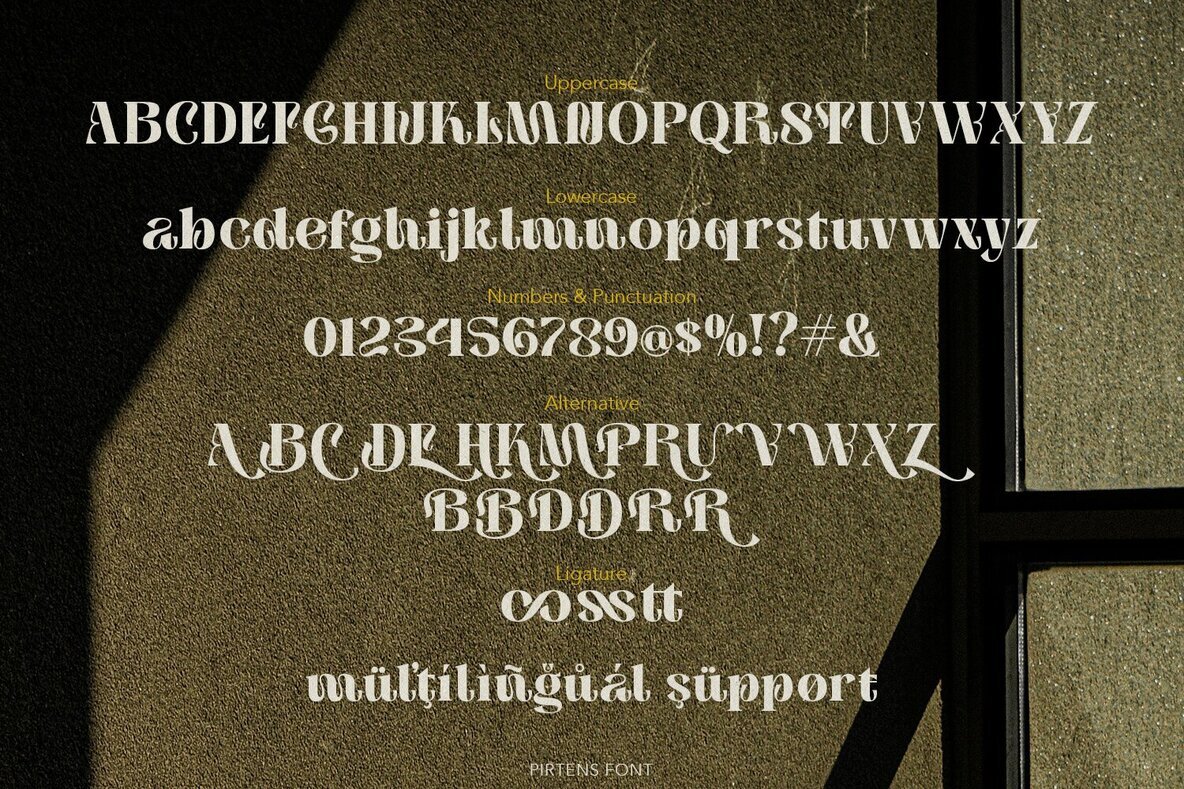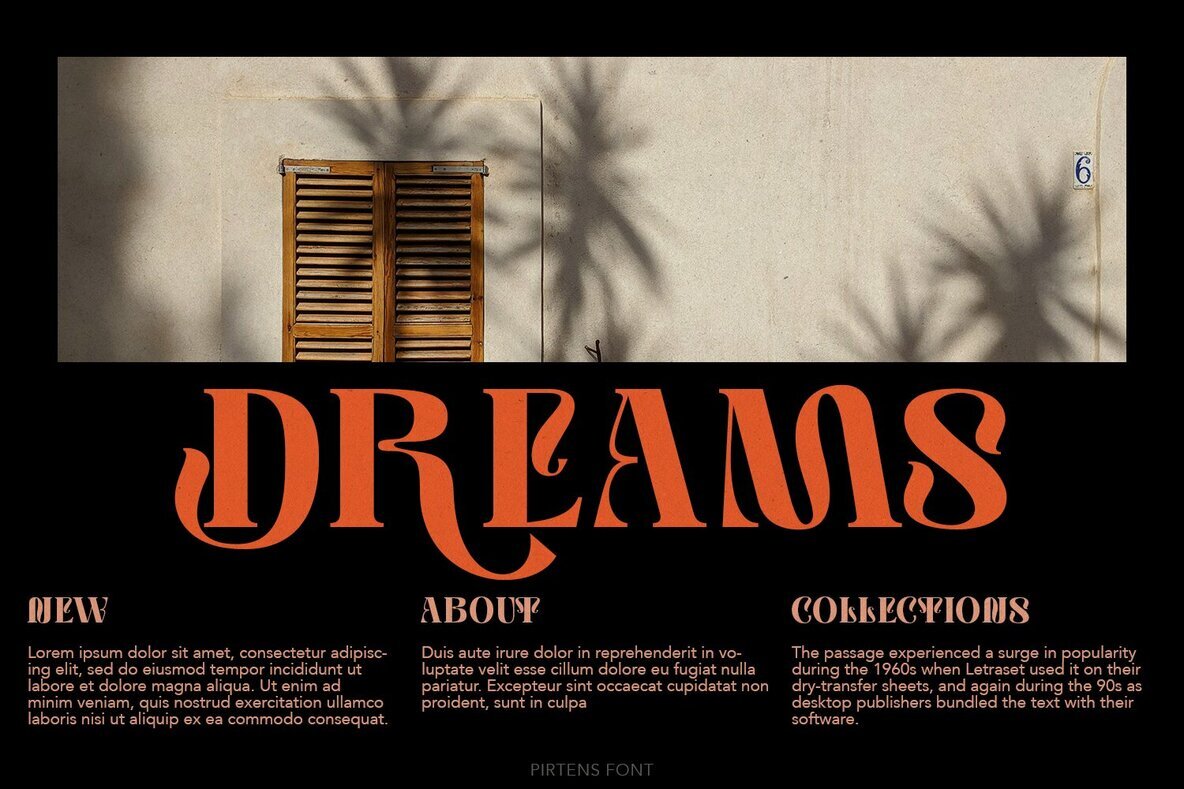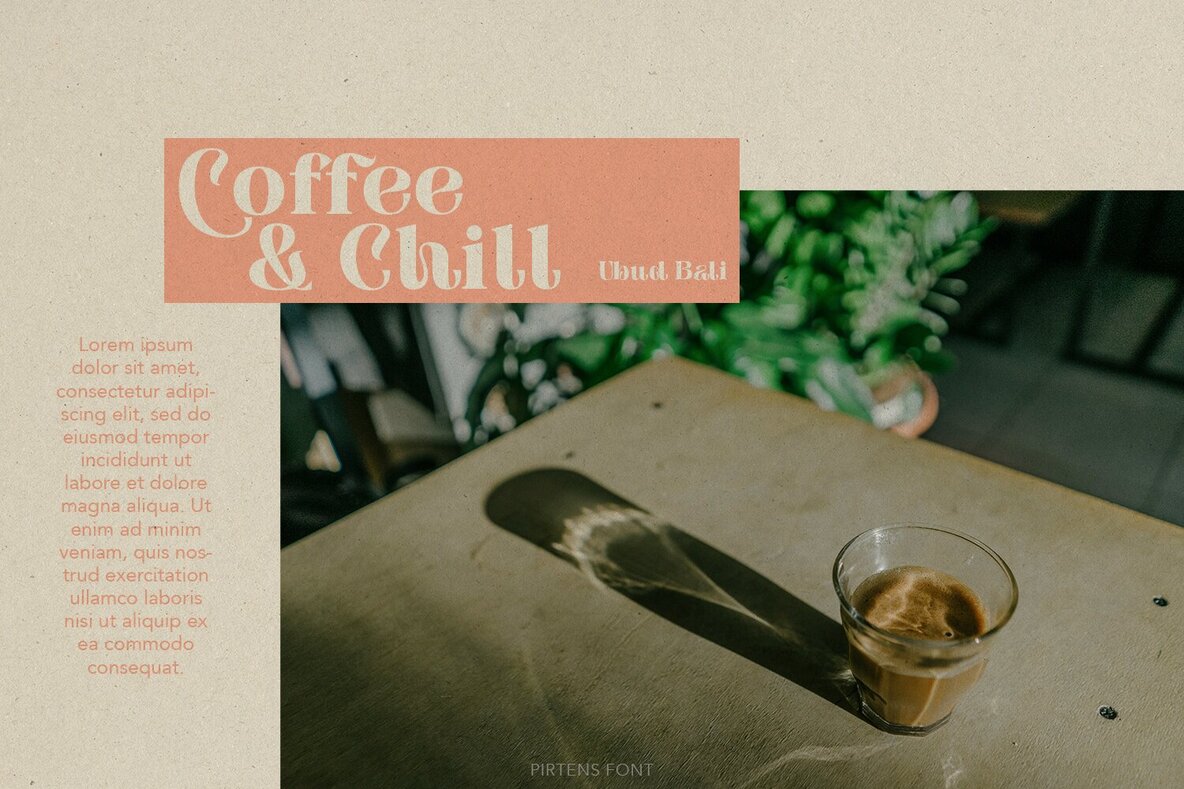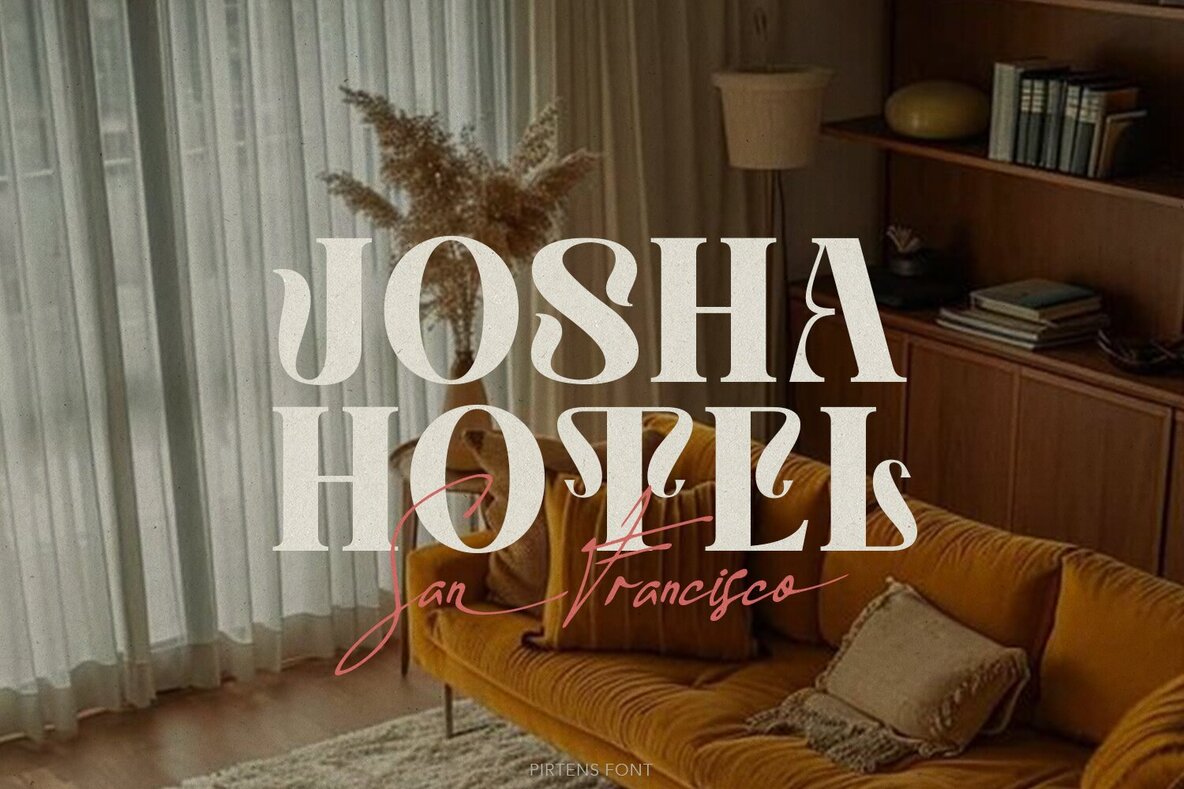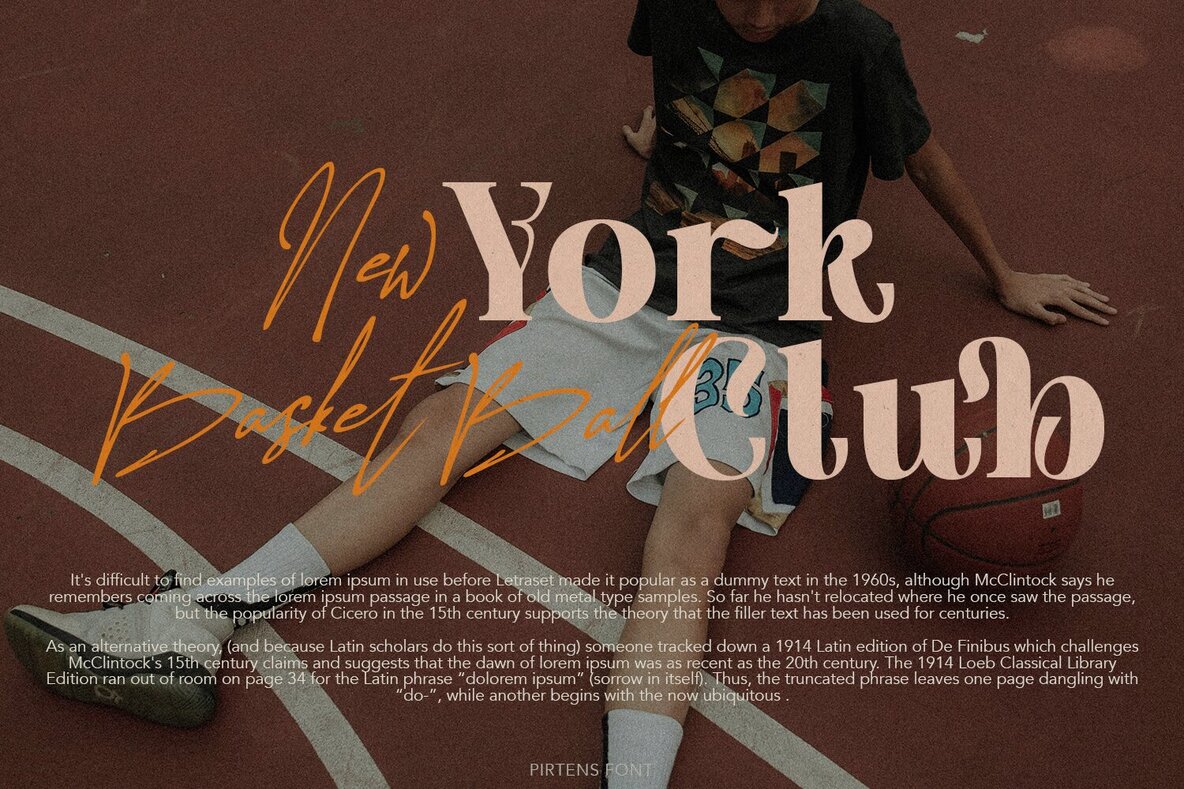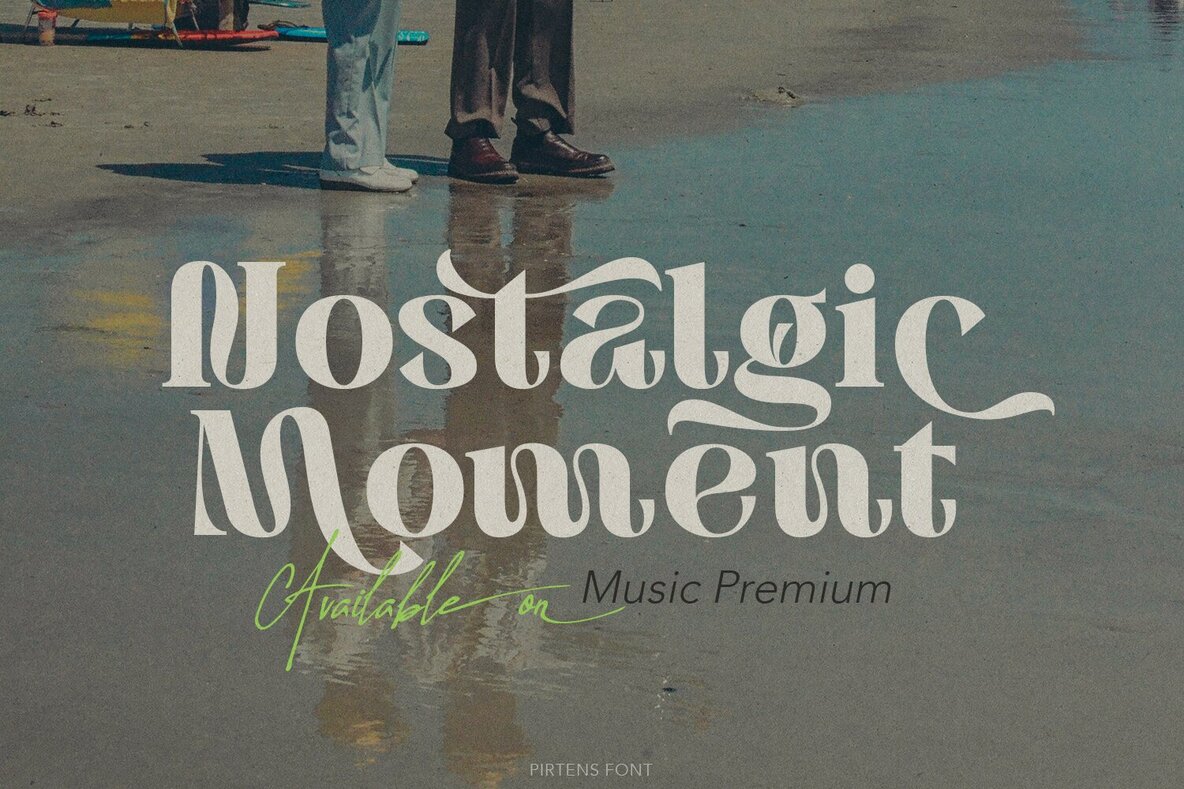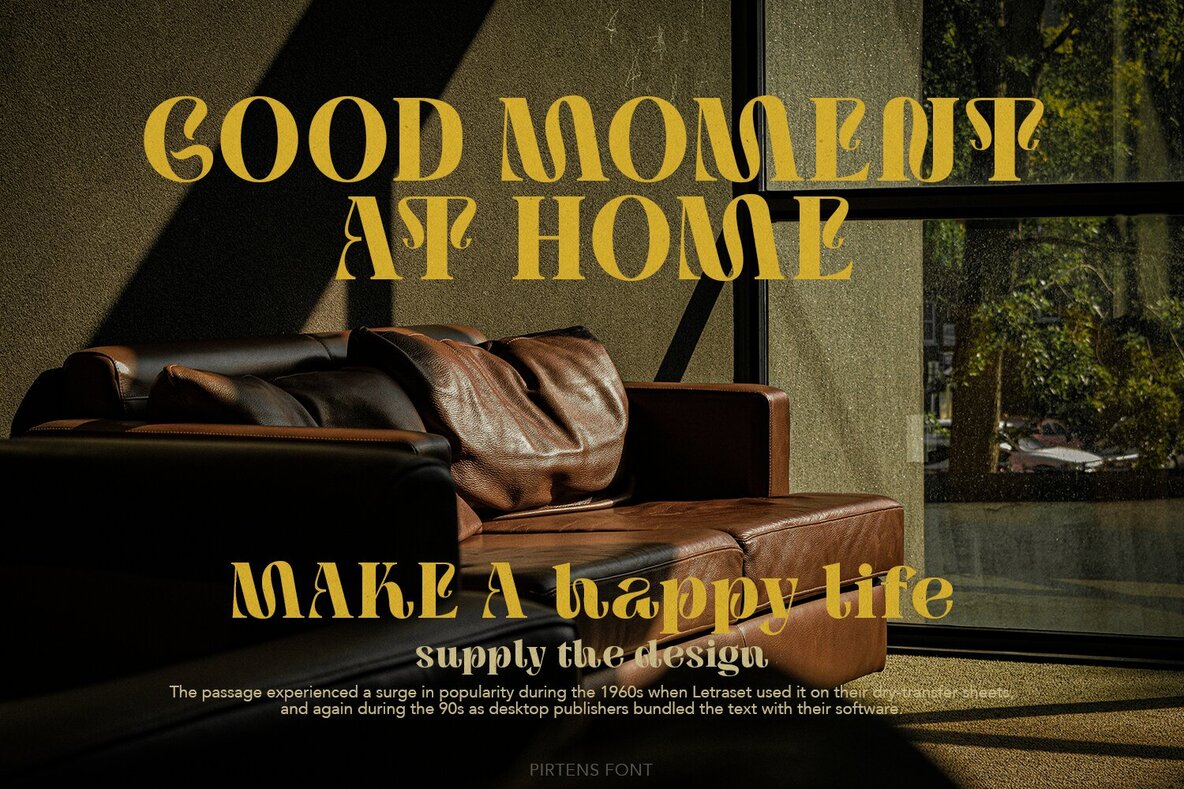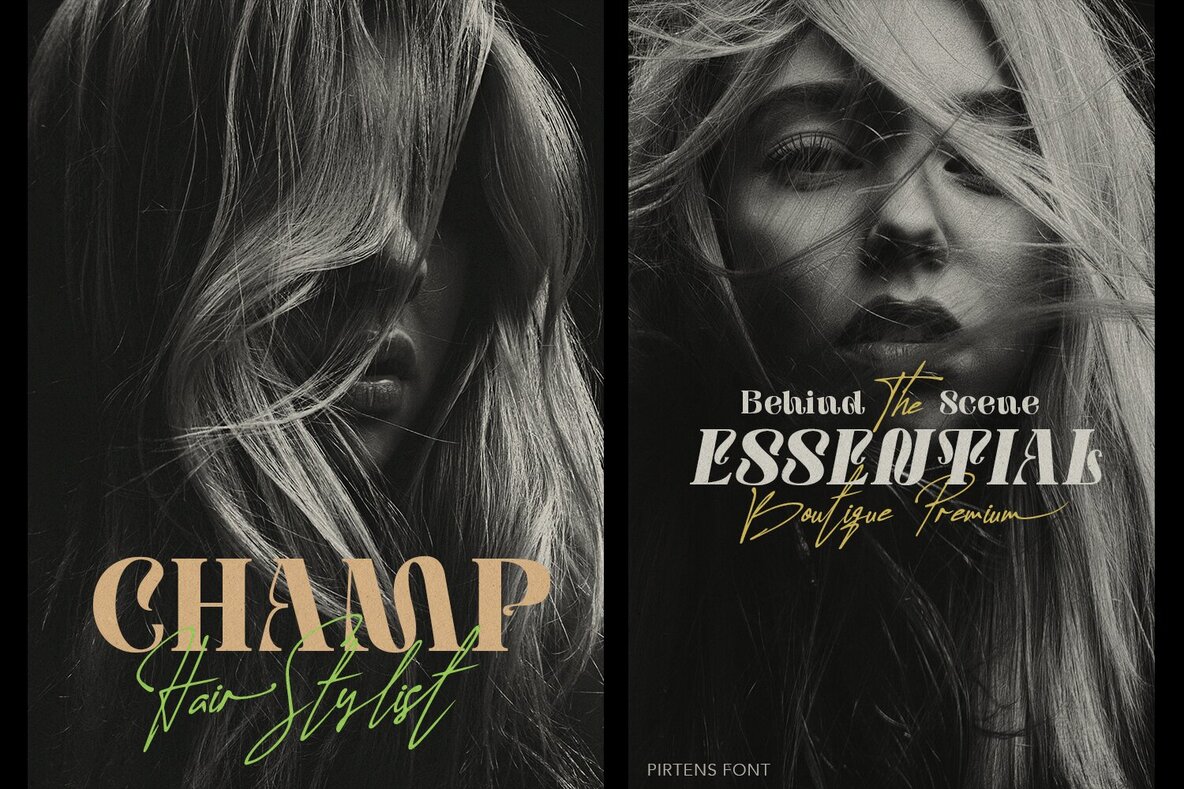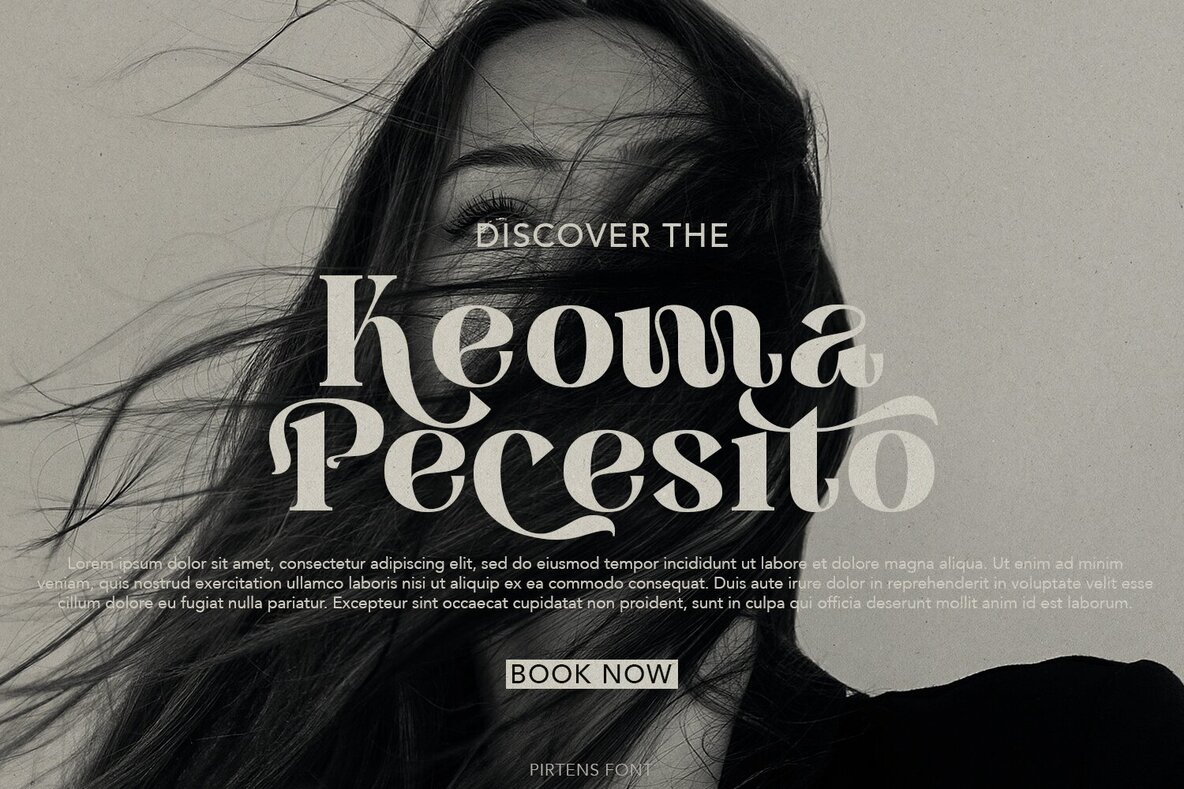
Pirtens Font
Pirtens
Pirtens is a high-contrast sans-serif display font perfect for sophisticated design projects. Its minimalistic and striking design makes it an ideal choice for high-end fashion and cultural settings. With Pirtens, you can bring a touch of elegance to any branding, product packaging, invitations, quotes, t-shirts, labels, posters, and logos.
This versatile font allows for creative combinations, enabling you to explore a range of styles. Whether you're looking to make a bold statement or create subtle sophistication, Pirtens provides the flexibility needed to enhance your designs seamlessly. Make Pirtens your go-to choice for projects that demand a sleek and refined aesthetic.